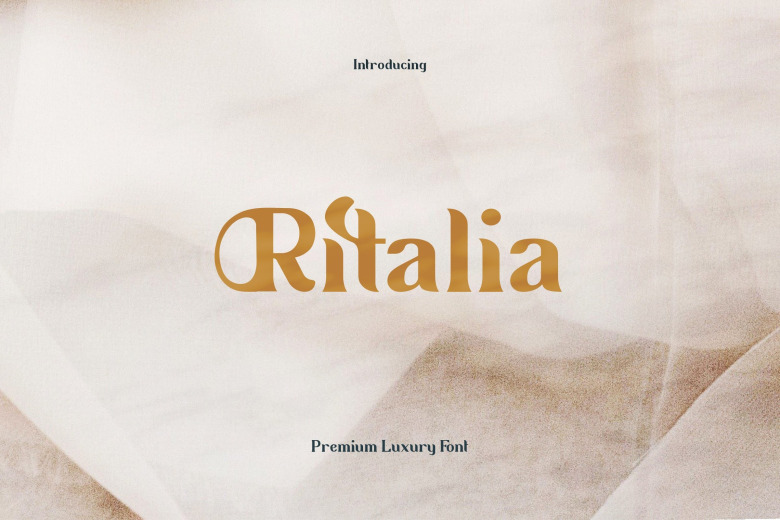
Ritalia Font
Ritalia Serif Font
Ritalia Serif Font is a fancy modern, vintage serif typeface inspired by the writing style of the 1950-1970 era, this font has a blend of modern and nostalgic with its feminine and luxurious nature. With the thickness that this font has for a higher readability, this font is suitable for cosmetic and beauty logos, mastheads, and quotes.